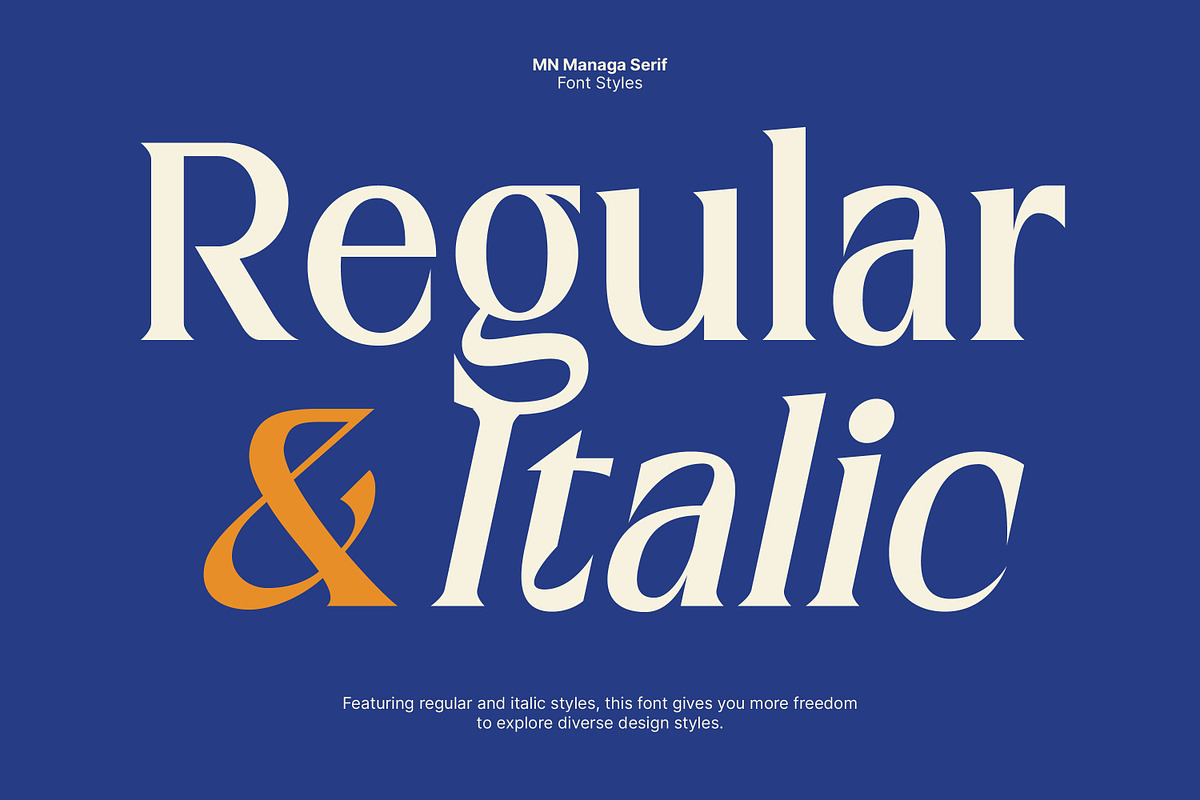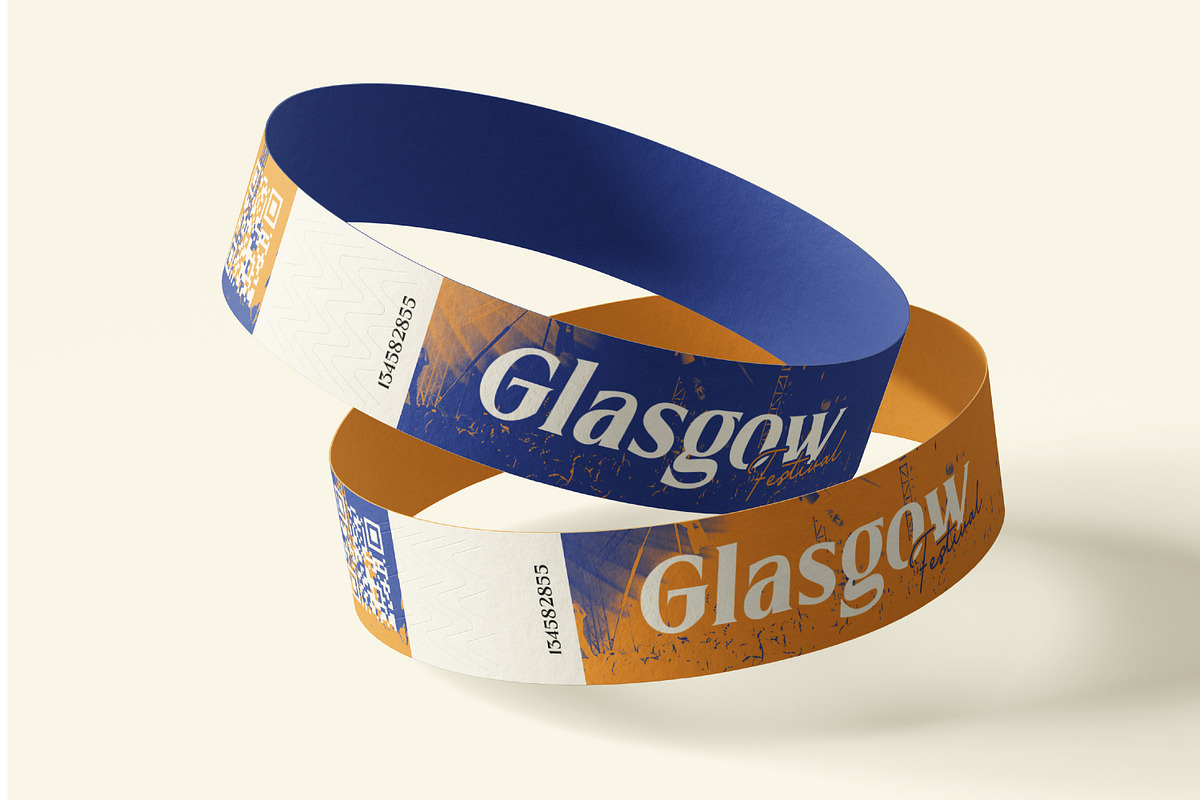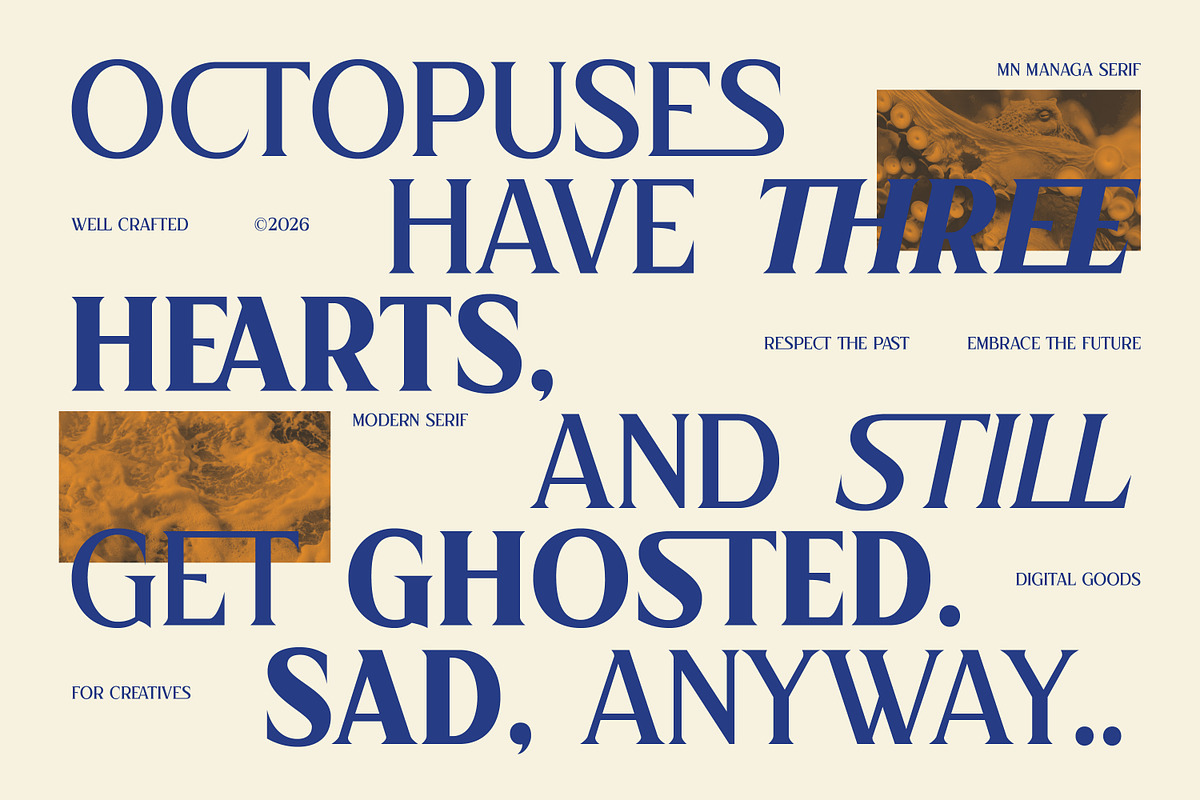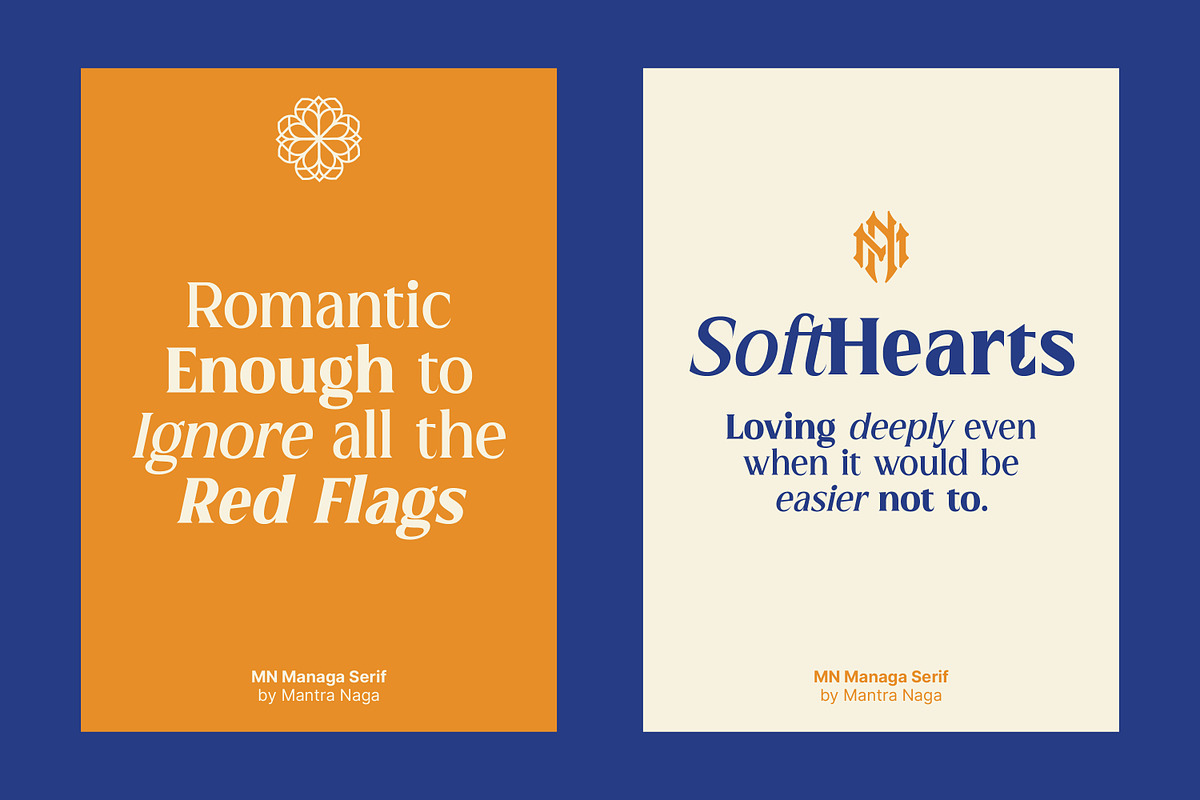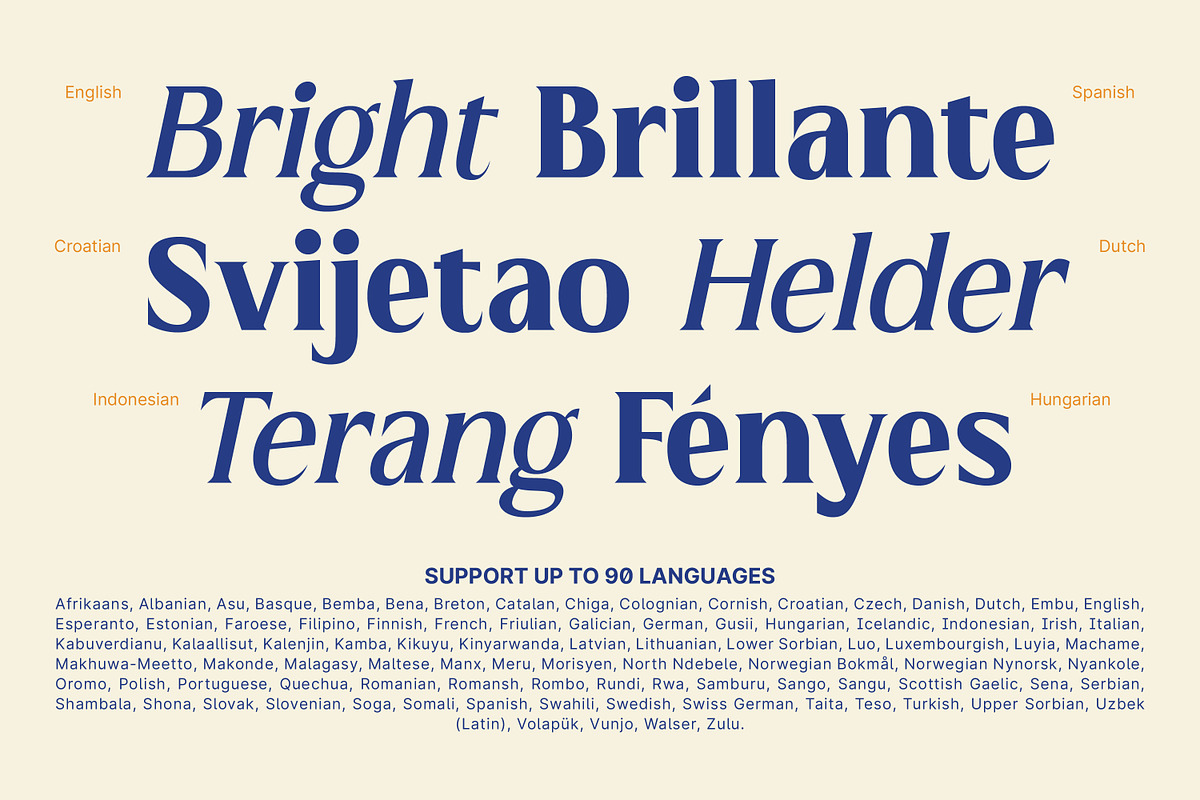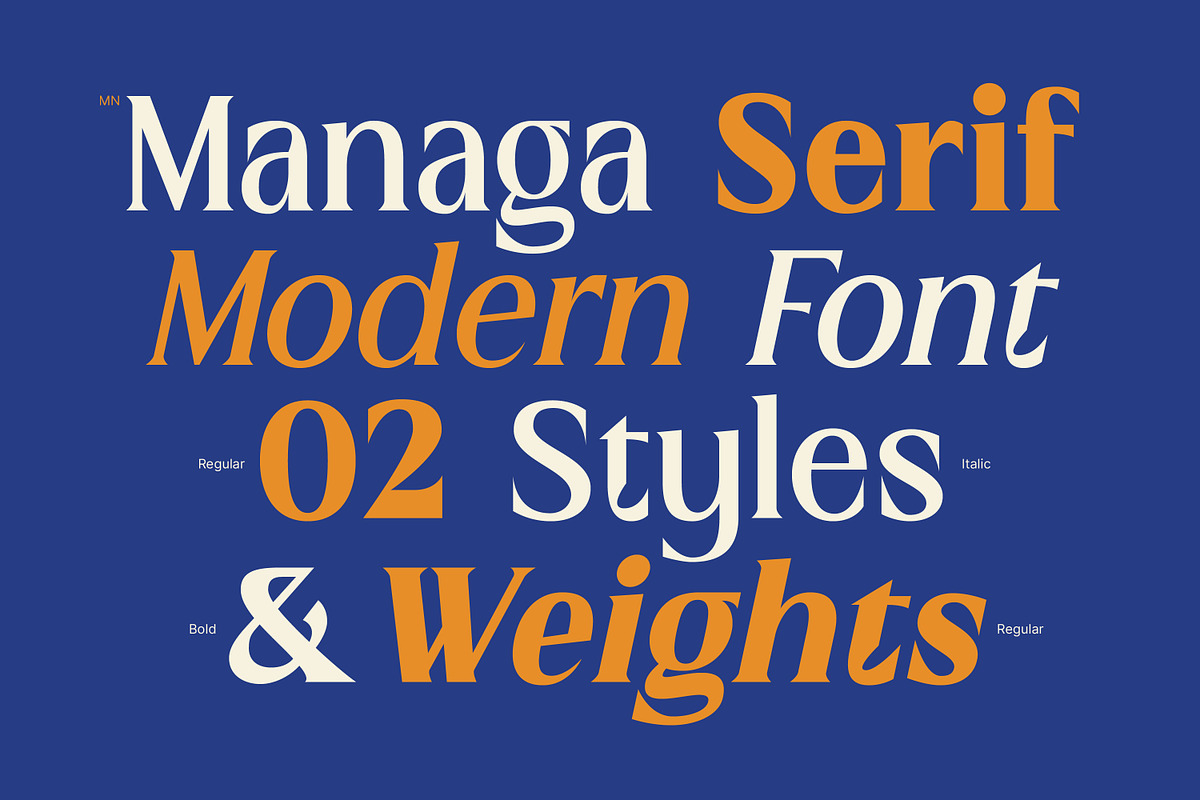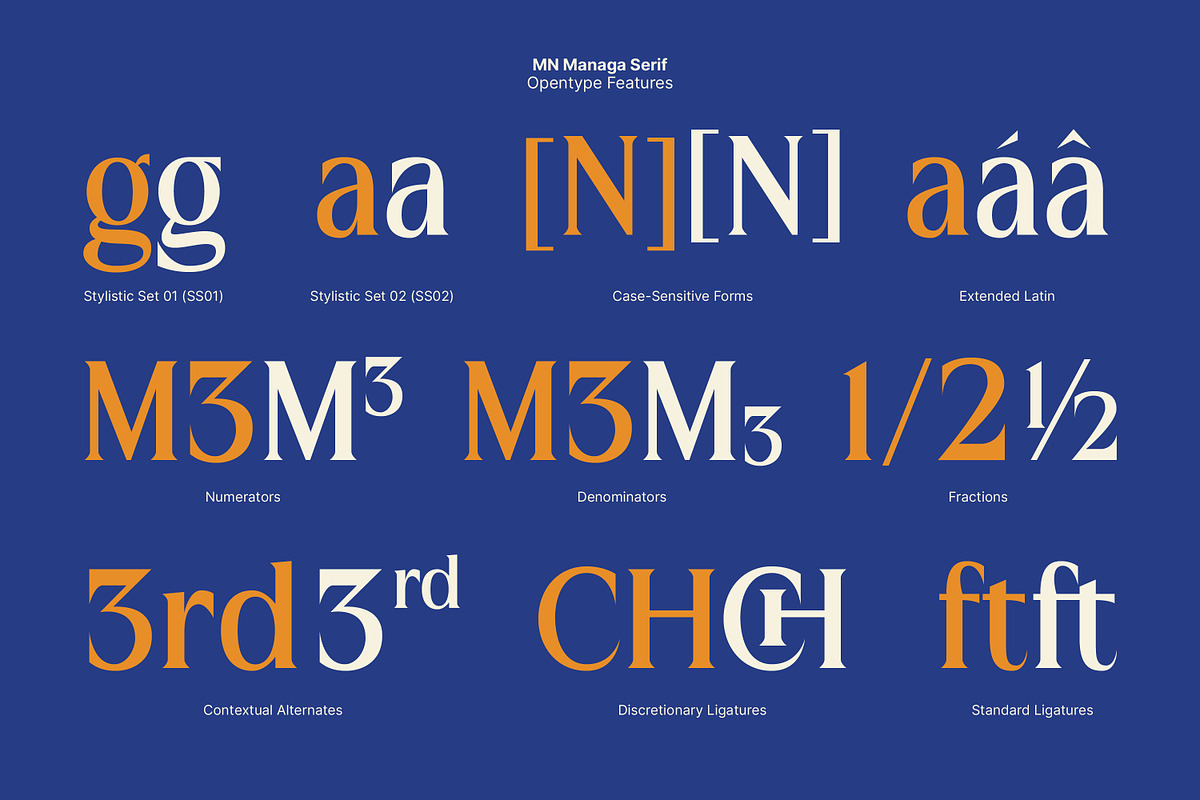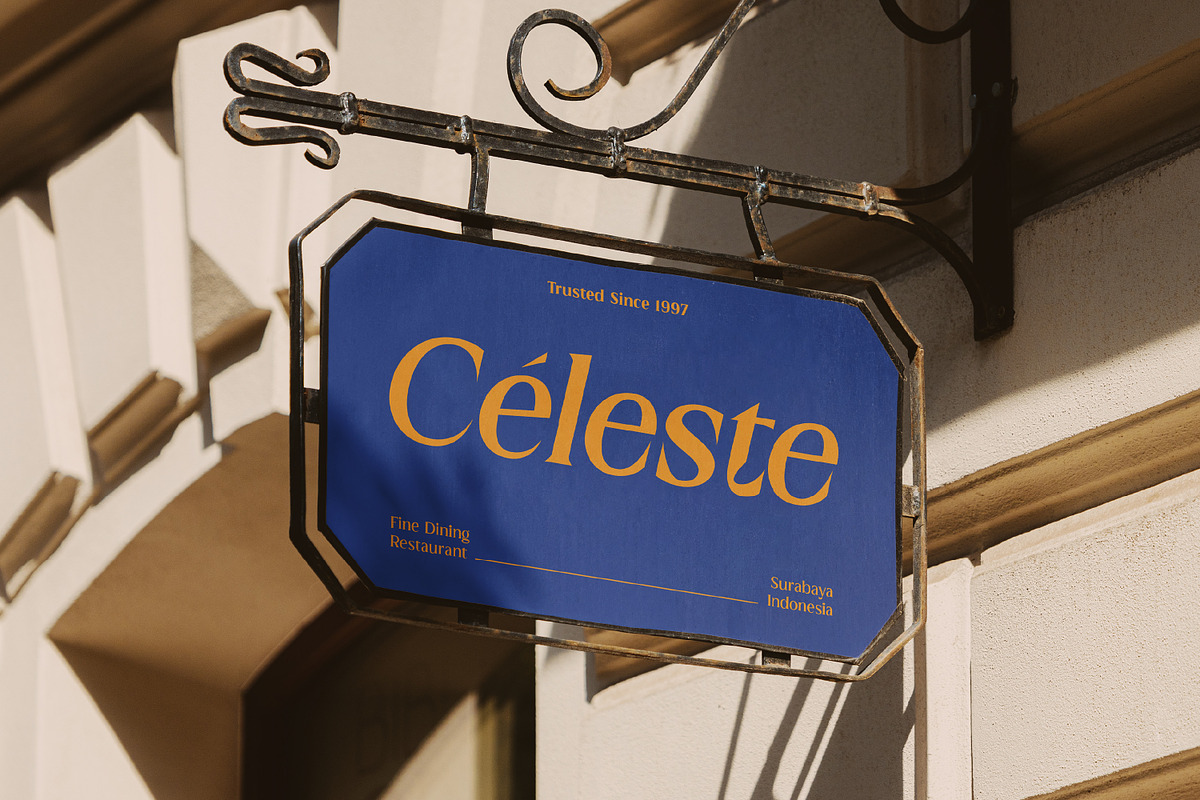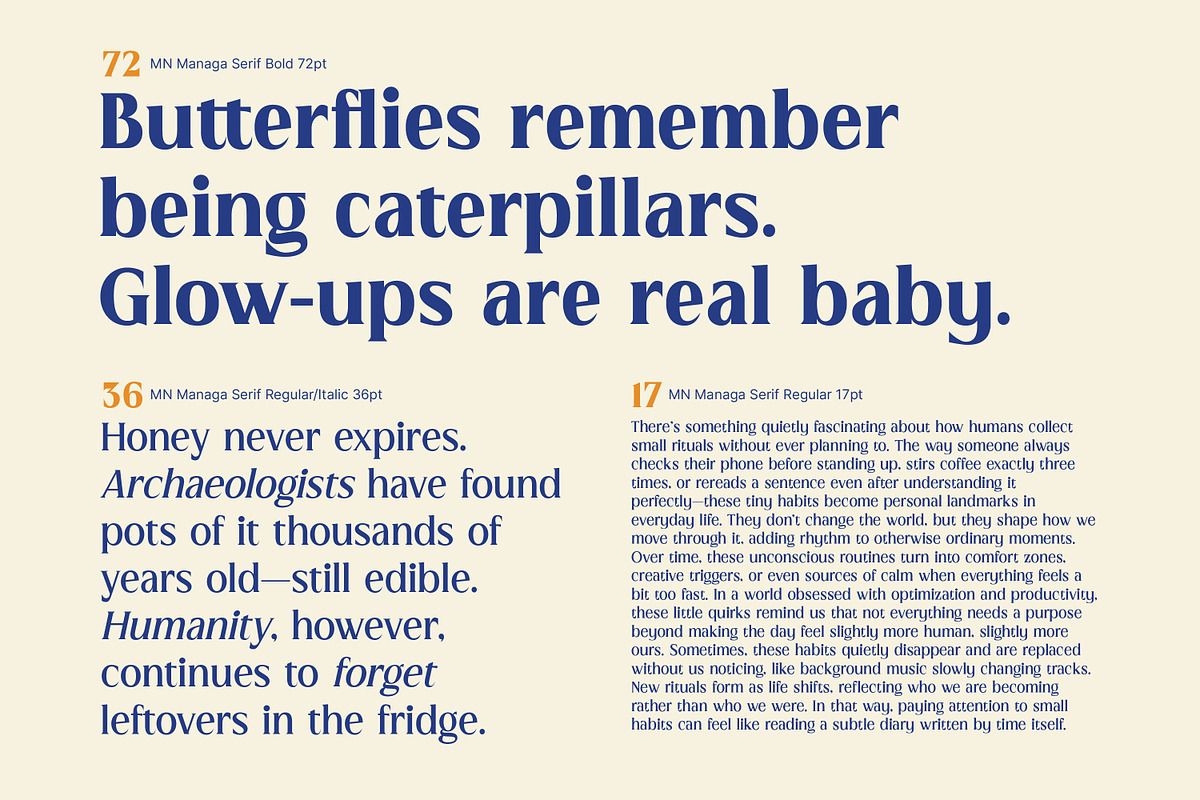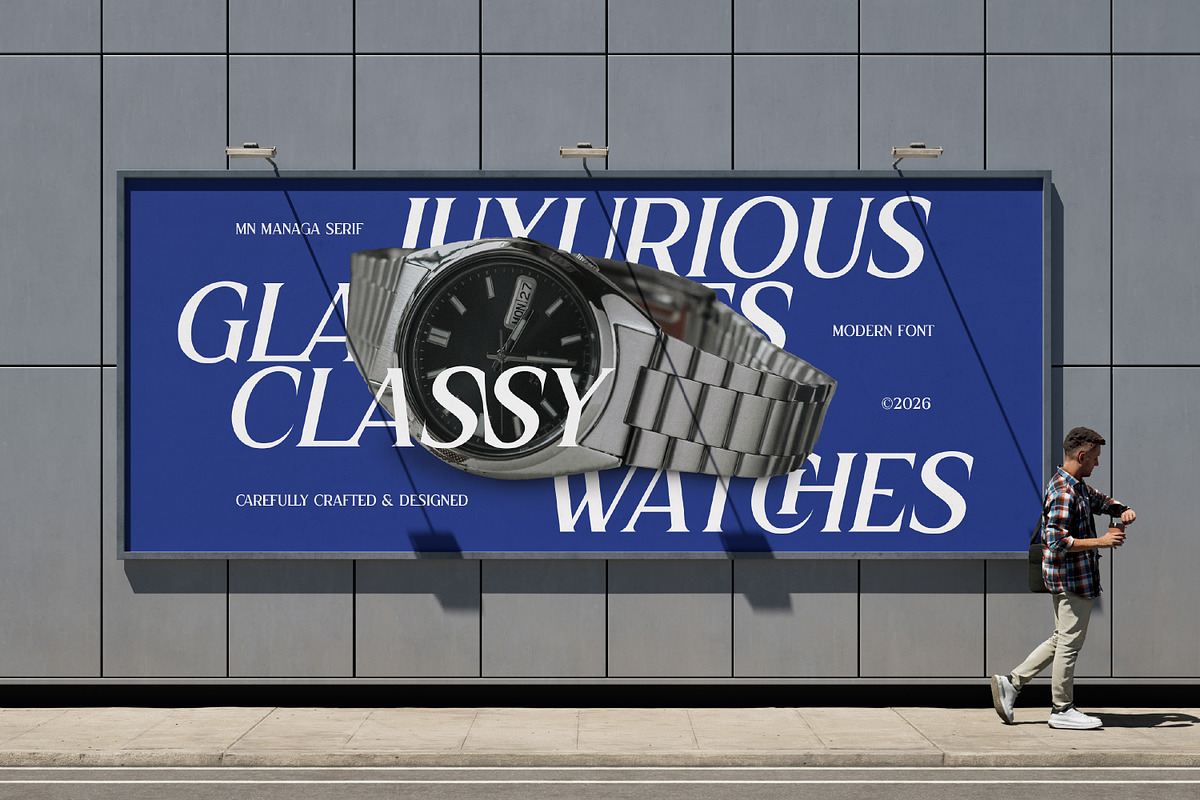
MN Managa Serif - Contemporary Serif
MN Managa Serif is a contemporary serif typeface inspired by classic European typography. It reinterprets transitional and early modern print traditions into a refined, confident voice for modern editorial design.
Built with structured proportions, balanced contrast, and precise serif detailing, this modern serif font delivers clarity, authority, and elegance across layouts. The Italic styles are carefully redrawn to add movement and character while preserving the family’s identity.
Available in Regular, Bold, Italic, and Bold Italic, MN Managa Serif is ideal for editorial headlines, premium branding, cultural publications, typographic logos, and sophisticated design systems that require a commanding yet refined presence.